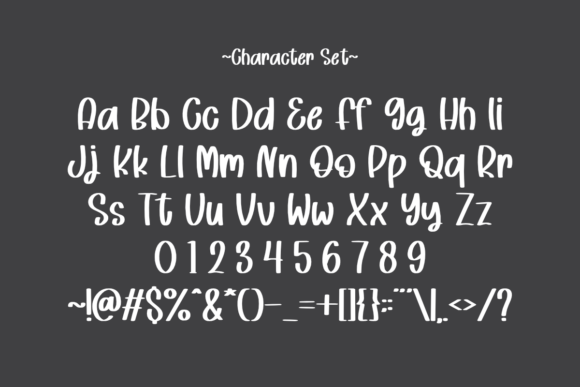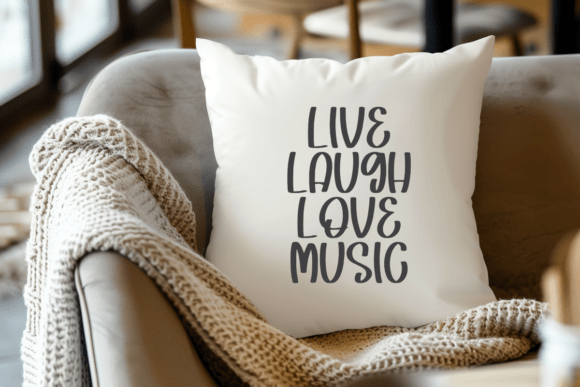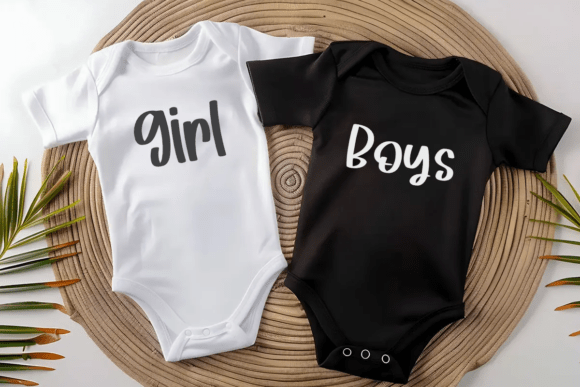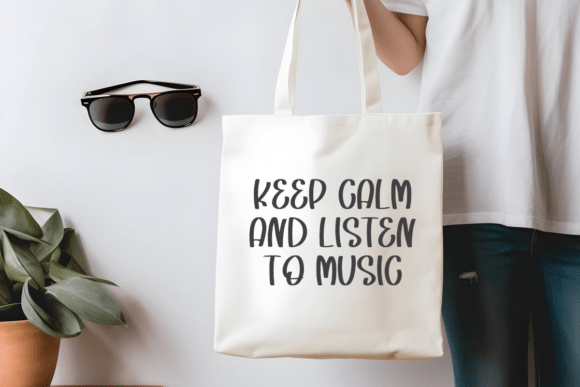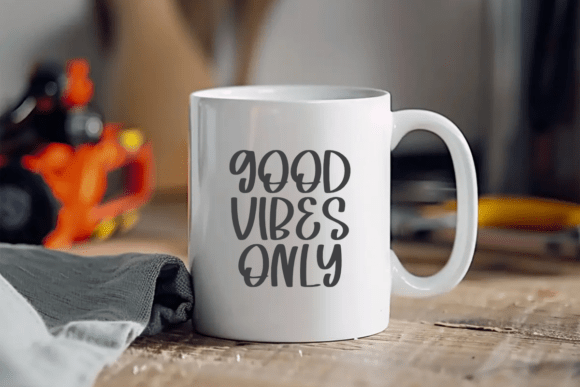
Introducing Gaelic Music Font: A Sweet and Cursive Handwritten Delight
Are you a designer or crafter looking for a font that adds a touch of joy and romance to your projects? Look no further than Gaelic Music Font, a beautiful and versatile handwritten font that’s perfect for a wide range of design ideas. In this article, we’ll explore the features and benefits of Gaelic Music Font, and show you how it can elevate your designs to the next level.
What is Gaelic Music Font?
Gaelic Music Font is a sweet and cursive handwritten font that’s designed to bring a touch of elegance and whimsy to your projects. With its gentle, flowing lines and charming character set, this font is perfect for adding a romantic and joyful touch to your designs. Whether you’re working on a valentine’s day card, a birthday invitation, or a craft project, Gaelic Music Font is sure to impress.
Features of Gaelic Music Font
So, what makes Gaelic Music Font so special? Here are just a few of its key features:
- Sweet and cursive handwritten style: Gaelic Music Font has a beautiful, flowing script that’s perfect for adding a touch of elegance to your designs.
- Versatile and adaptable: This font is suitable for a wide range of design ideas, from paper crafts to digital projects.
- Easy to read and use: Gaelic Music Font is clear and legible, making it perfect for use in a variety of contexts.
- Perfect for crafters and designers: Whether you’re a seasoned designer or a crafty DIY enthusiast, Gaelic Music Font is a great choice for adding a personal touch to your projects.
Project Ideas for Gaelic Music Font
So, what can you create with Gaelic Music Font? The possibilities are endless! Here are a few project ideas to get you started:
- Dog print valentine paper: Create adorable valentine’s day cards and gifts for dog lovers.
- Bookmarks: Design beautiful bookmarks with a personal touch.
- Mugs: Add a touch of elegance to your mug designs with Gaelic Music Font.
- 100 days of school: Create fun and colorful projects for this popular school milestone.
- Planner: Use Gaelic Music Font to add a touch of personality to your planner designs.
- Tumbler wrap: Design stunning tumbler wraps with this versatile font.
- Sublimation: Create beautiful sublimation projects with Gaelic Music Font.
- Embroidery: Use this font to add a personal touch to your embroidery projects.
- Procreate: Create stunning digital art with Gaelic Music Font.
- Notion: Design beautiful notion projects with this elegant font.
- Tumbler: Add a touch of style to your tumbler designs with Gaelic Music Font.
- Laser cut: Create intricate and beautiful laser cut projects with this font.
Themed Projects for Gaelic Music Font
Gaelic Music Font is also perfect for a wide range of themed projects, including:
- Black History: Create powerful and meaningful projects for Black History Month.
- Dragonfly: Design beautiful dragonfly-themed projects with a touch of elegance.
- Christian: Use Gaelic Music Font to create inspiring and uplifting Christian projects.
- Birthday: Create stunning birthday cards and gifts with this font.
- Valentine’s Day: Design beautiful valentine’s day projects with a romantic touch.
- Mardi Gras: Add a touch of whimsy to your Mardi Gras projects with Gaelic Music Font.
- Easter: Create adorable Easter-themed projects with this font.
In conclusion, Gaelic Music Font is a beautiful and versatile handwritten font that’s perfect for designers and crafters. With its sweet and cursive style, this font is sure to add a touch of joy and romance to your projects. Whether you’re working on a valentine’s day card, a birthday invitation, or a craft project, Gaelic Music Font is a great choice. So why wait? Download Gaelic Music Font today and start creating stunning projects that showcase your creativity and style!